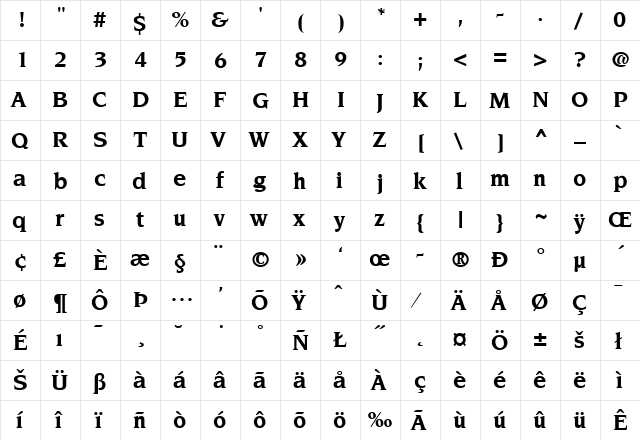
Novarese-Bold Regular
Design Context for Novarese-Bold Typeface
Novarese-Bold offers clean, dependable letterforms without strong stylistic allegiance, making it a practical choice for designers who need flexibility. Its bold stroke weight gives it real presence on the page.
Pro Tip: Use Novarese-Bold in both headline and body roles to test its range before committing to a single application.